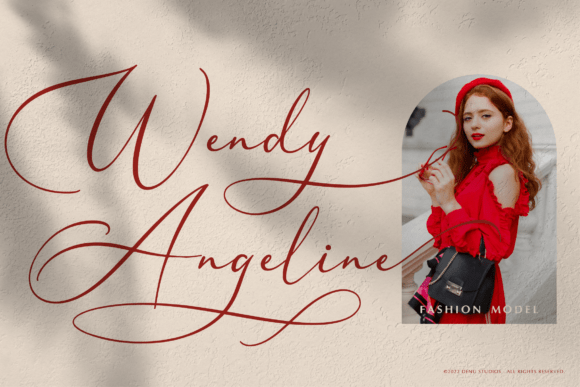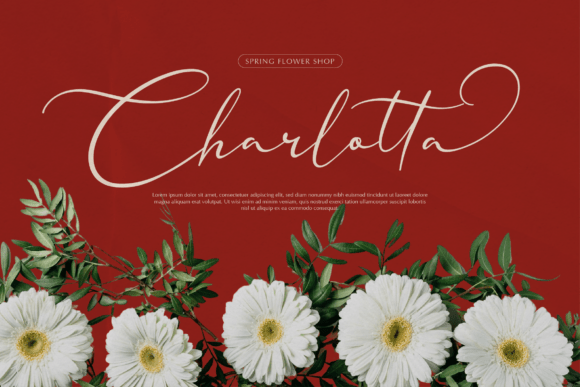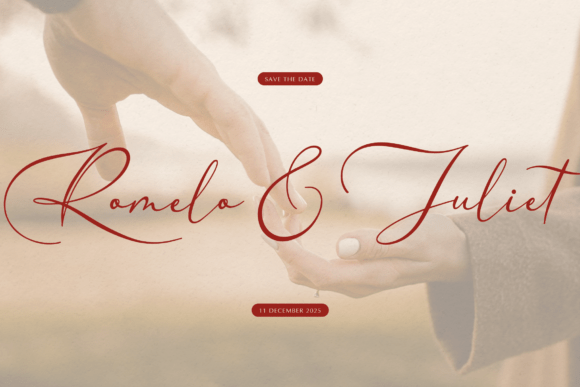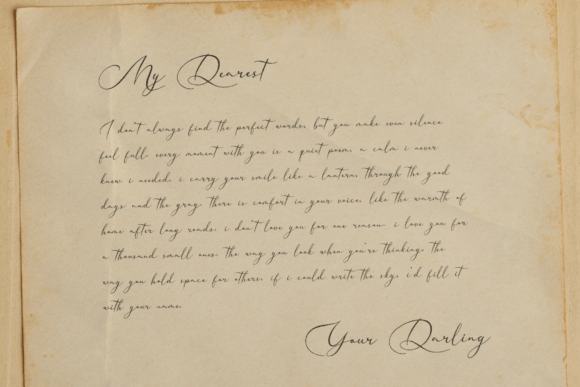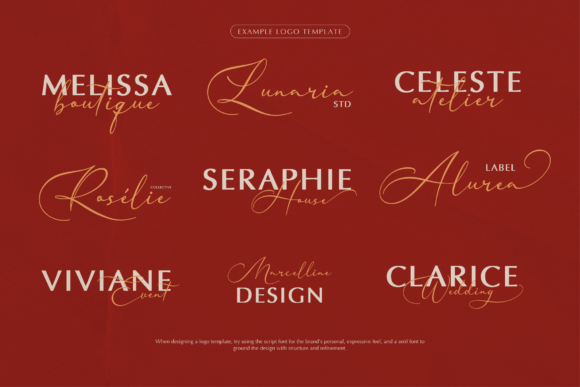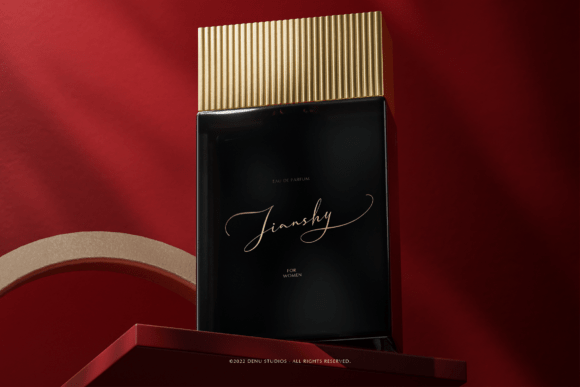
Introduction to Nellysia Sorettein Font
Nellysia Sorettein is a luxurious modern calligraphy font with sweeping strokes and a romantic spirit.
Its graceful curves, delicate ligatures, and over 310 glyphs make it a perfect choice for high-end wedding stationery, personal branding, and elegant packaging With multilingual support and alternate characters, this script font delivers both style and flexibility for heartfelt and sophisticated designs.